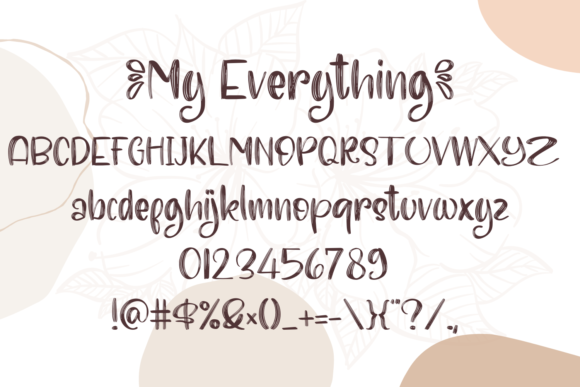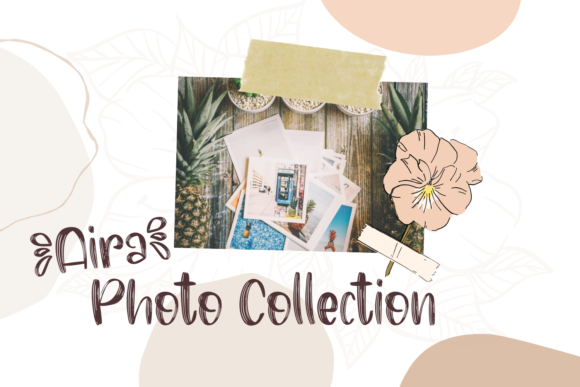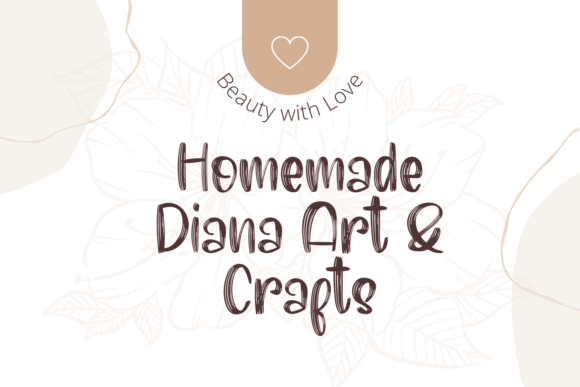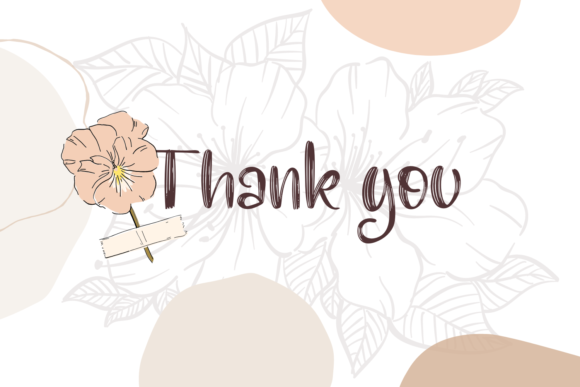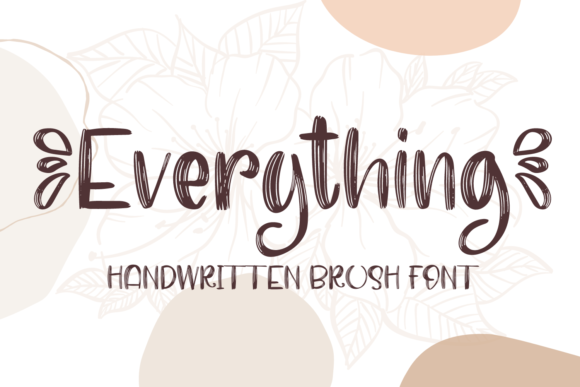
Introducing Everything Font: The Ultimate Handwritten Font for Designers and Crafters
Are you tired of using the same old fonts in your design projects? Do you want to add a personal touch to your creations? Look no further than Everything Font, a cool and brushed handwritten font that’s perfect for designers and crafters alike. In this article, we’ll dive into the features and benefits of Everything Font, and explore how it can enhance the beauty of your projects.
A Balanced and Varied Font
Everything Font is a carefully crafted font that’s designed to be balanced and varied. It’s not too thin and not too thick, making it perfect for a wide range of design applications. Whether you’re creating a logo, a poster, or a digital graphic, Everything Font is the perfect choice. The font’s balanced design ensures that it will look great in any context, from large headlines to small body text.
A Cool and Brushed Handwritten Font
Everything Font has a unique, handwritten feel that’s perfect for designers and crafters who want to add a personal touch to their projects. The font’s brushed texture gives it a organic, hand-crafted look that’s sure to stand out. Whether you’re creating a rustic, vintage-inspired design or a modern, minimalist graphic, Everything Font is the perfect choice.
Key Features of Everything Font
- Balanced design: Not too thin and not too thick, Everything Font is perfect for a wide range of design applications.
- Varied letterforms: The font features a range of letterforms, ensuring that your designs will always look unique and interesting.
- Brushed texture: The font’s brushed texture gives it a organic, hand-crafted look that’s perfect for designers and crafters.
- Easy to read: Despite its handwritten feel, Everything Font is easy to read, making it perfect for body text and headlines.
How to Use Everything Font in Your Designs
Everything Font is a versatile font that can be used in a wide range of design applications. Here are a few ideas to get you started:
- Logos and branding: Use Everything Font to create a unique and memorable logo for your business or brand.
- Posters and flyers: Add a personal touch to your posters and flyers with Everything Font.
- Digital graphics: Use Everything Font to create eye-catching digital graphics, such as social media graphics and blog headers.
- Crafting and scrapbooking: Everything Font is perfect for crafters and scrapbookers who want to add a personal touch to their projects.
Why Designers and Crafters Love Everything Font
Designers and crafters love Everything Font for its unique combination of style and versatility. Here are a few reasons why:
- Unique look: Everything Font has a unique, handwritten look that’s sure to stand out in any design.
- Versatile: Everything Font can be used in a wide range of design applications, from logos and branding to posters and digital graphics.
Everything Font is a cool and brushed handwritten font that’s perfect for designers and crafters who want to add a personal touch to their projects. With its balanced design, varied letterforms, and brushed texture, Everything Font is sure to enhance the beauty of your designs. Whether you’re creating a logo, a poster, or a digital graphic, Everything Font is the perfect choice. So why wait? Download Everything Font today and start creating stunning designs that stand out from the crowd!